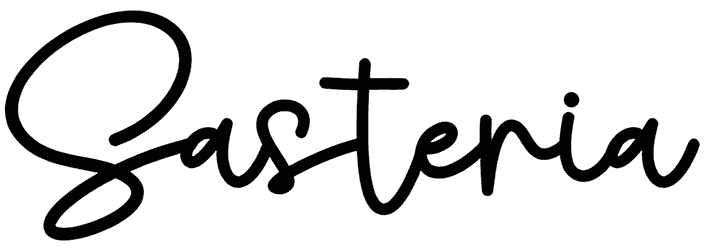
Sasteria Font
A fresh asset as a handwritten font called Sasteria comes across to lives up to your expectations marvelously. As a perfect item for those who want to point up logos, posters, quotes, invitations, stationery, and more, it arouses to sets a cheerful tone.